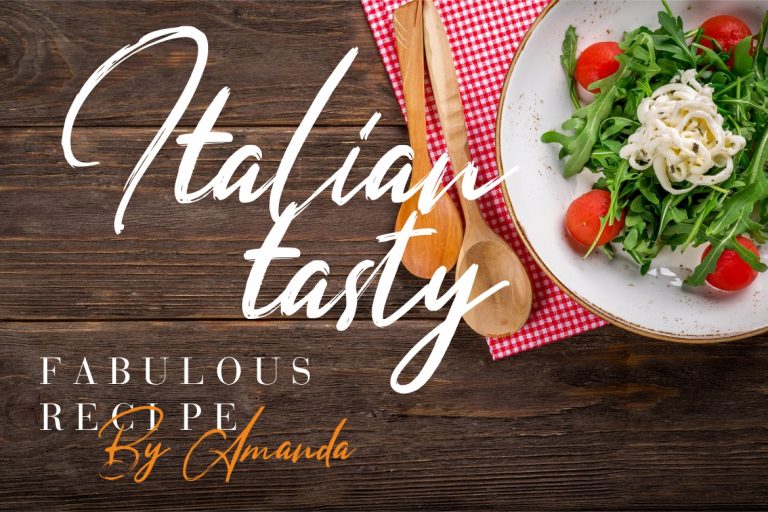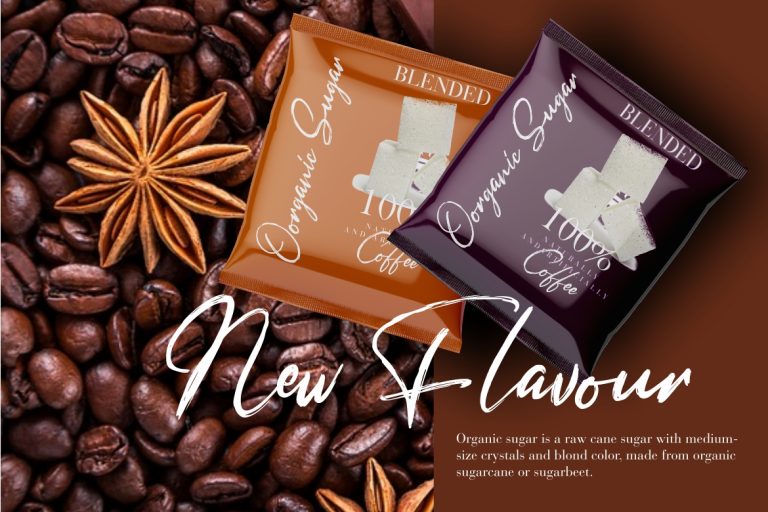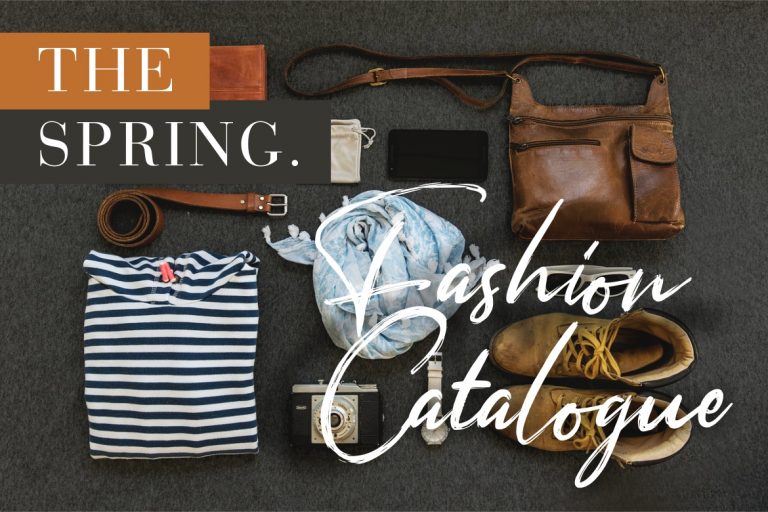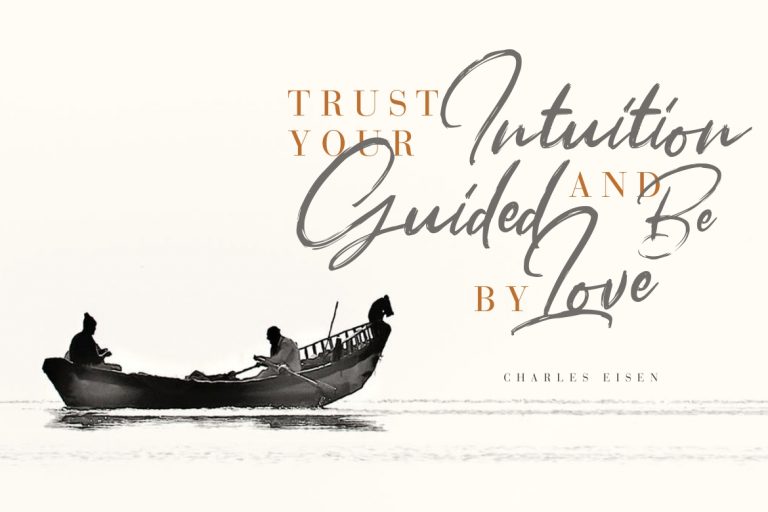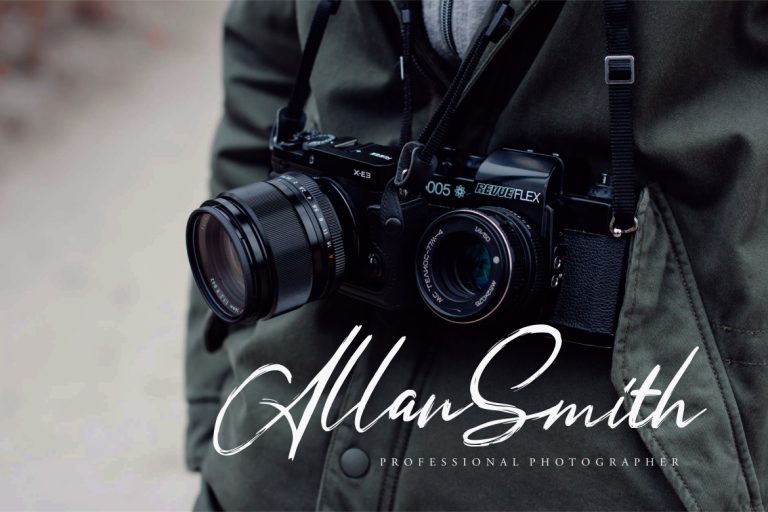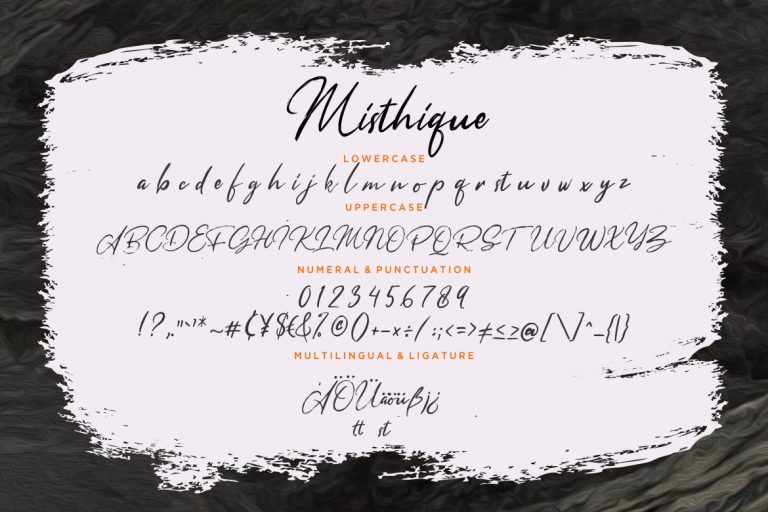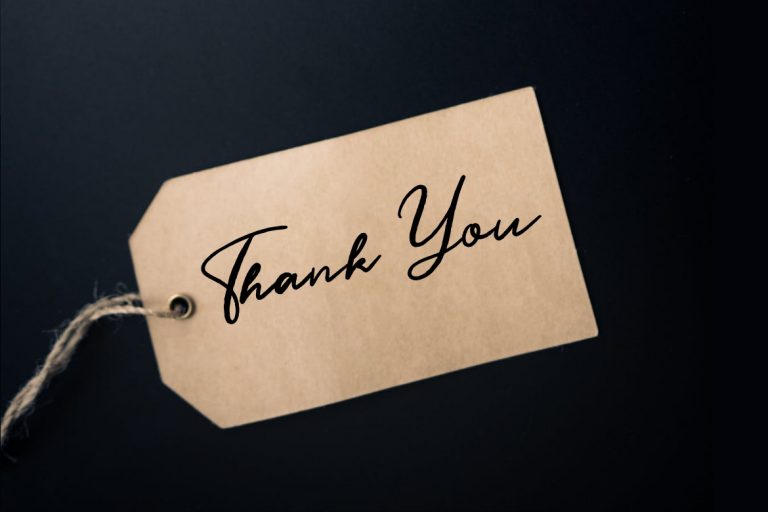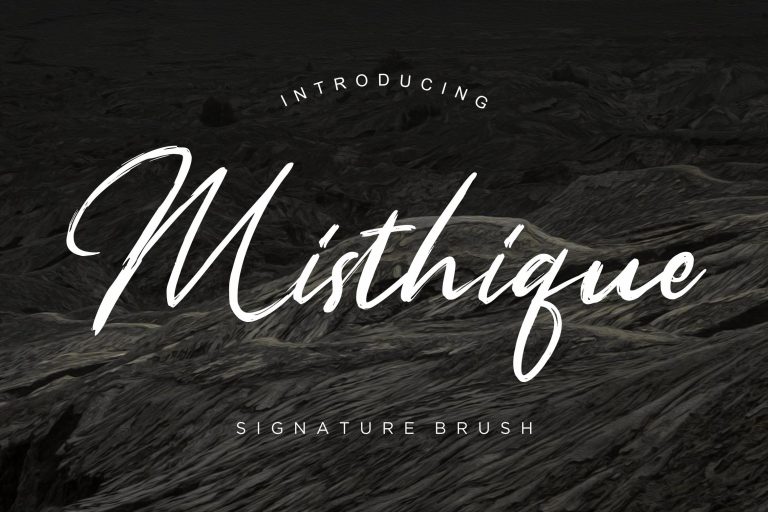
Misthique Signature Brush is a signature brush font with rough and natural movement will make your project looks awesome.
Misthique Signature Brush is perfect for branding projects, logo, wedding designs, social media posts, advertisements, product packaging, product designs, label, photography, watermark, invitation, stationery and any projects that need handwriting taste.
• Standard glyphs
• Ligature
• Fonts include multilingual support for; ä ö ü Ä Ö Ü ß ¿ ¡
Misthique Signature Brush